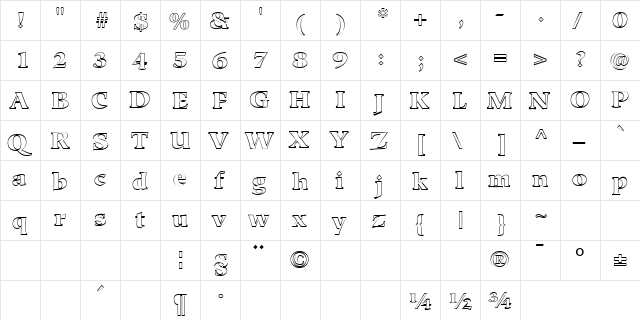
Hero Outline
StyleOutline
Design Context for Hero Typeface
Hero is built around its visual character rather than neutral utility — its distinctive forms are designed to make an impression at display sizes.
Font Pairing: Pair with a clean neutral sans-serif for body copy to let Hero's character lead without overwhelming the composition.
Pro Tip: Use Hero exclusively at display sizes — it was designed to be seen, not read at length. Let a neutral companion handle body copy.